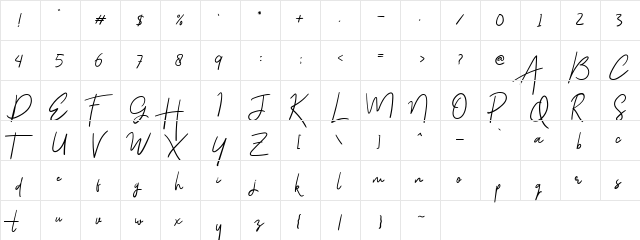
Gloriant Regular
| Foundry | Letterhend Studio |
| Designer | Letterhend Studio |
Design Context for Gloriant Typeface
Gloriant is a composed and adaptable typeface that performs quietly and consistently across a wide range of design contexts.